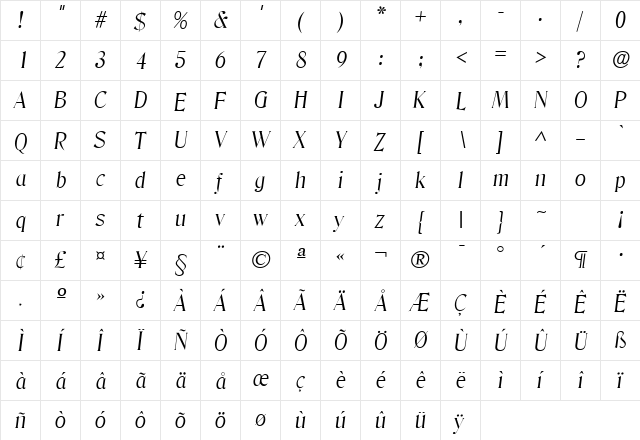
Blue Ridge Light SF Italic Font Preview
Design Context for Blue Ridge Light SF Typeface
Blue Ridge Light SF offers clean, dependable letterforms without strong stylistic allegiance, making it a practical choice for designers who need flexibility. The dynamic lean of this cut emphasises speed and emphasis in any layout. The delicate stroke weight brings airiness and refinement to layouts.